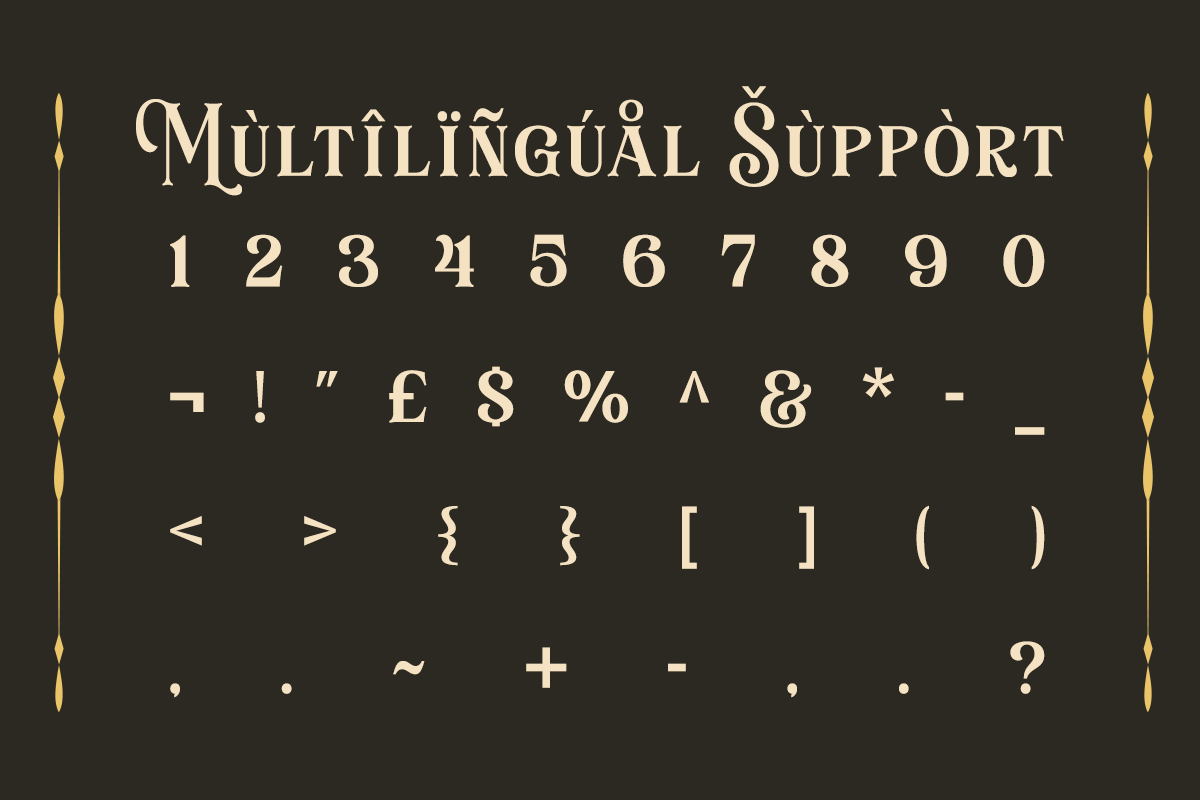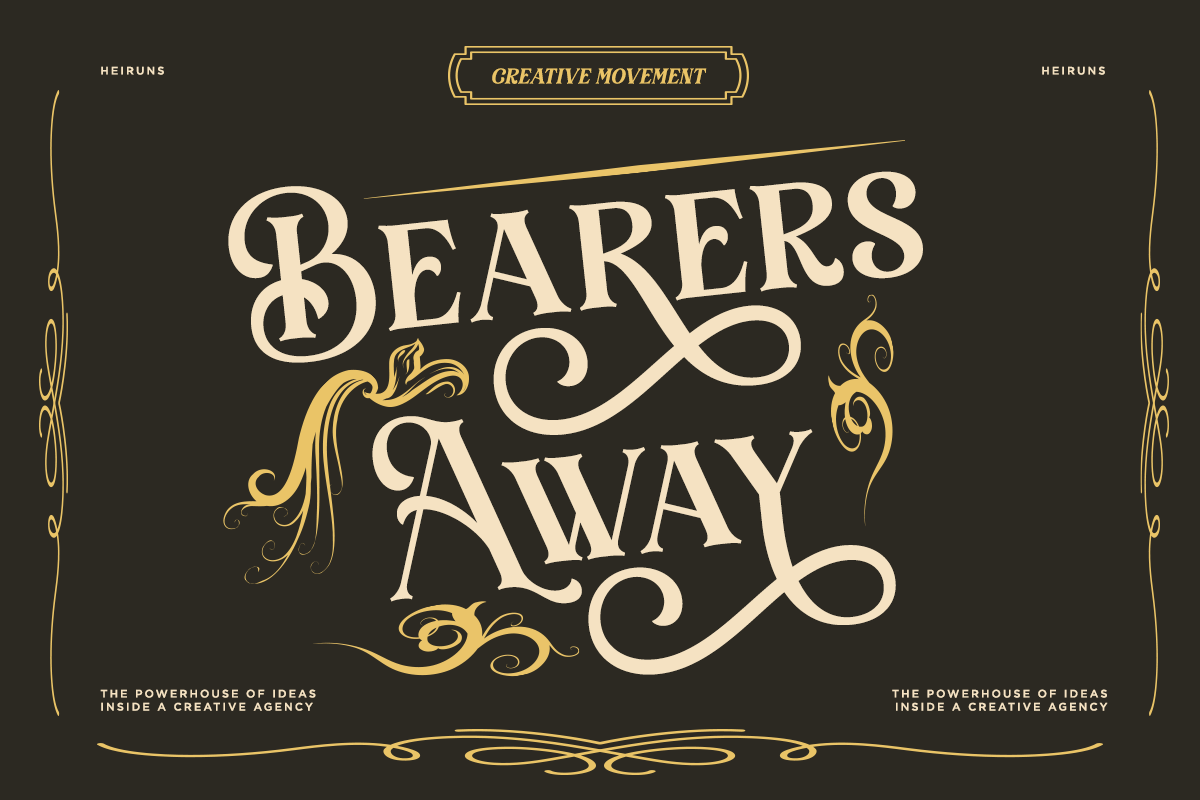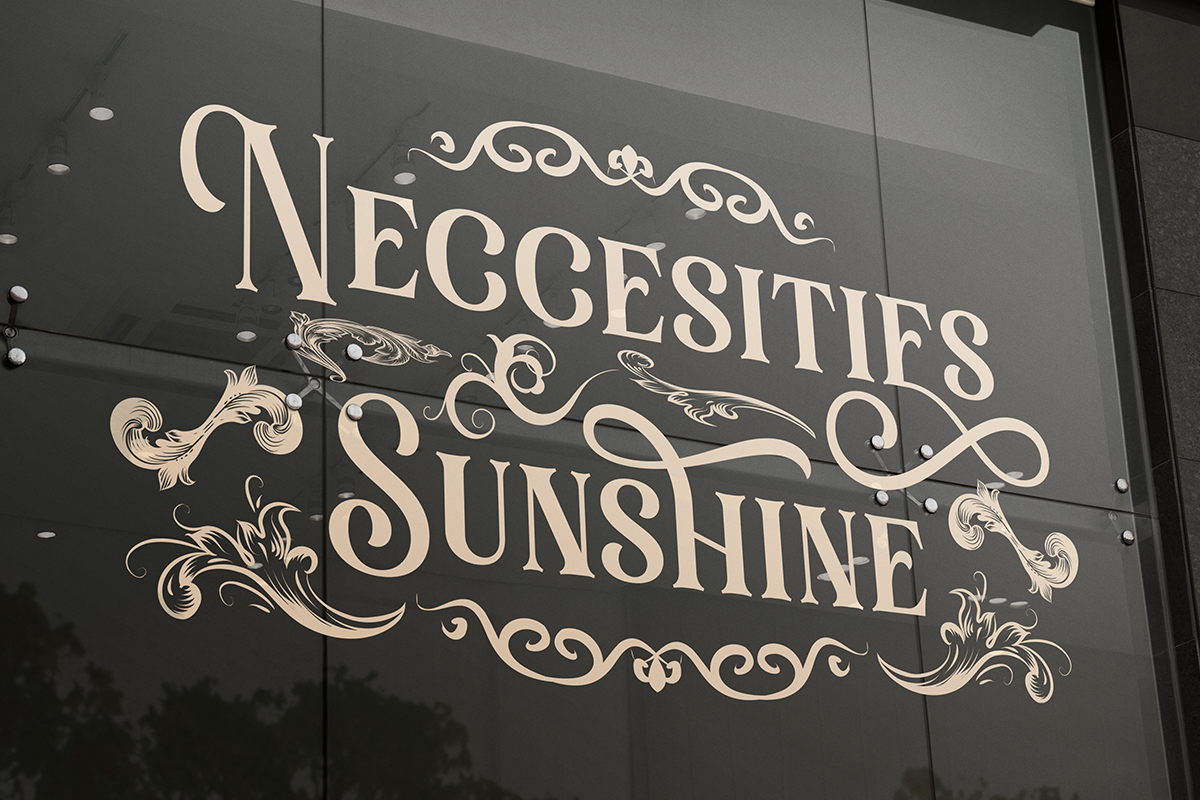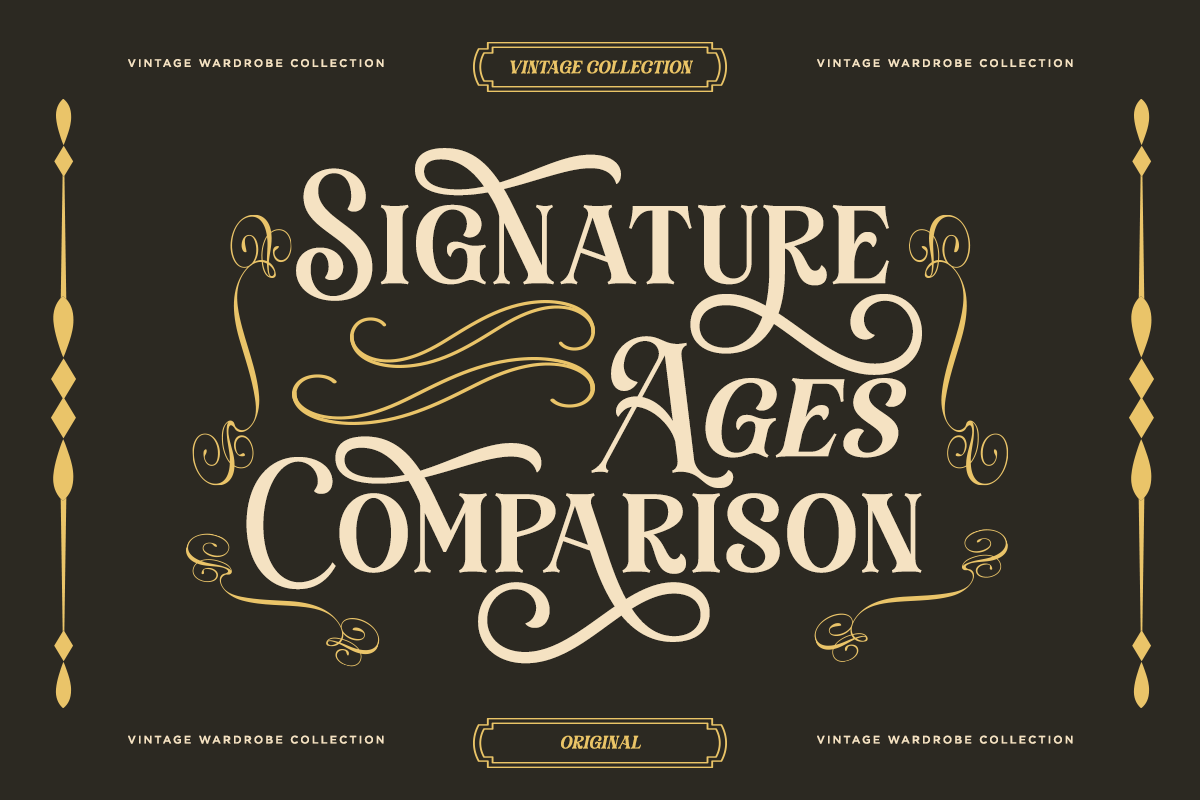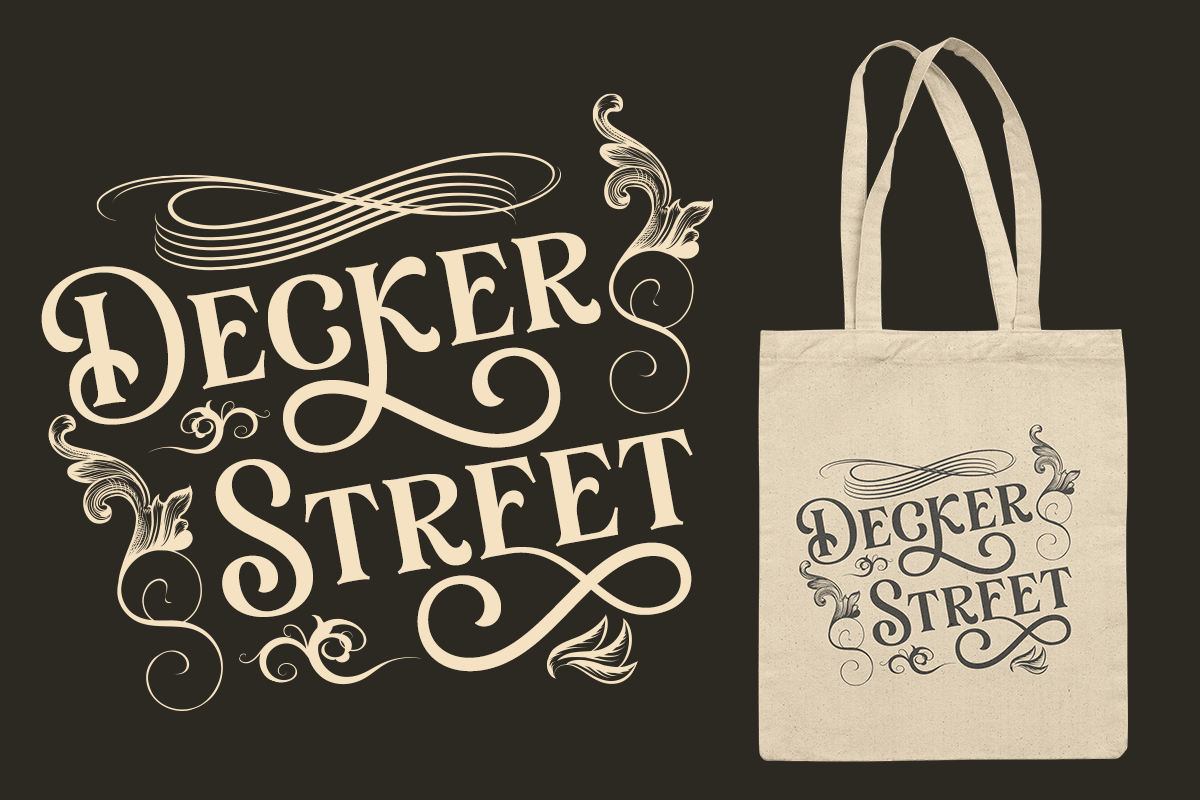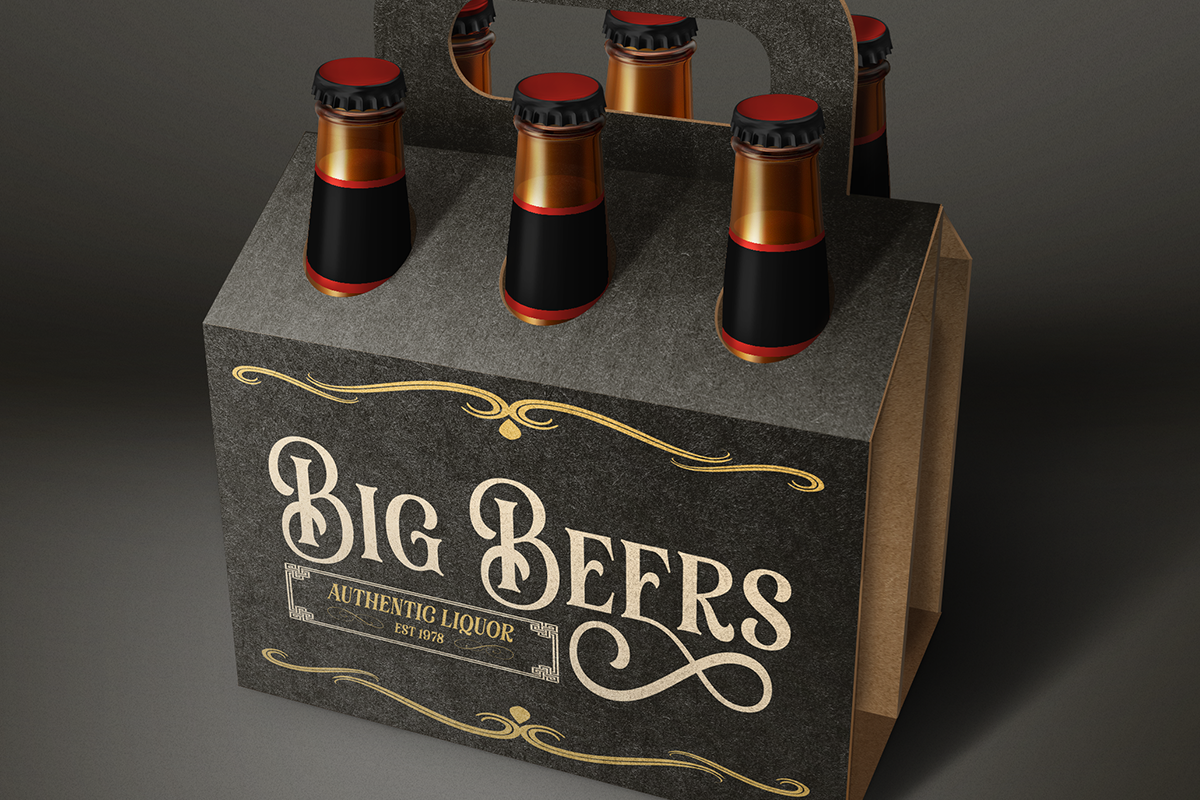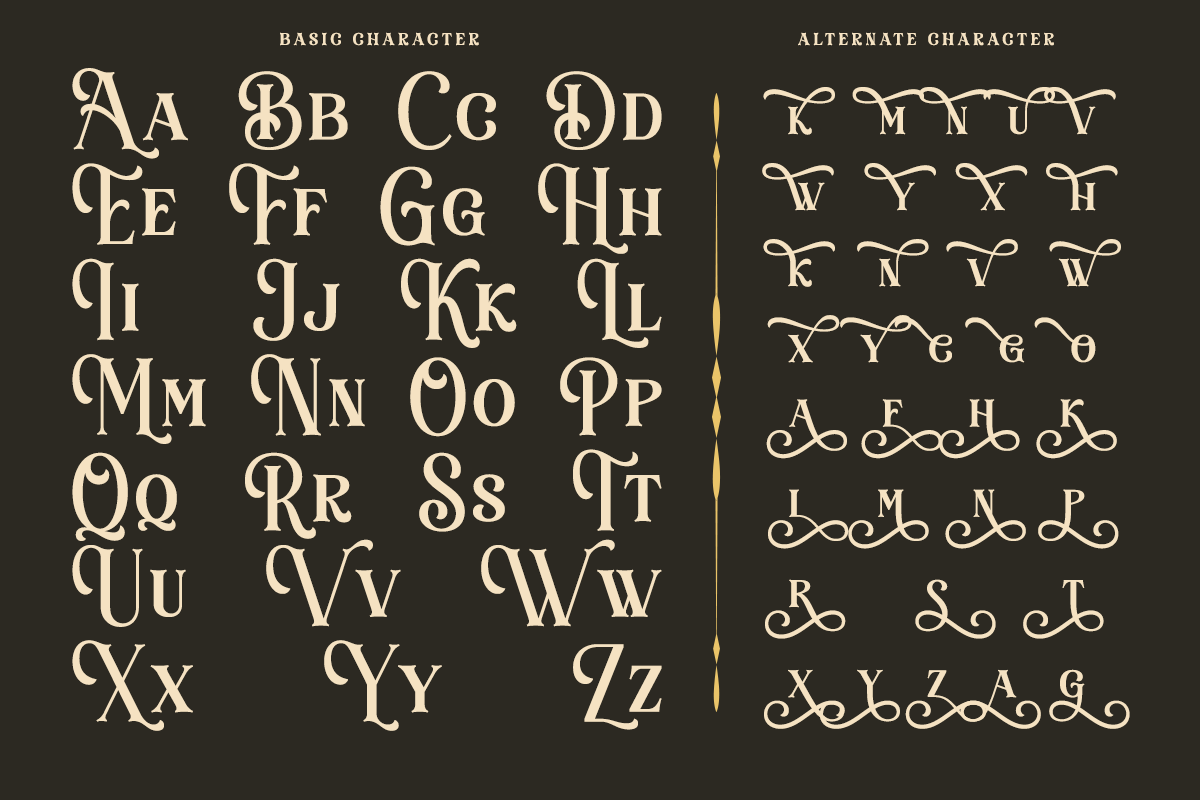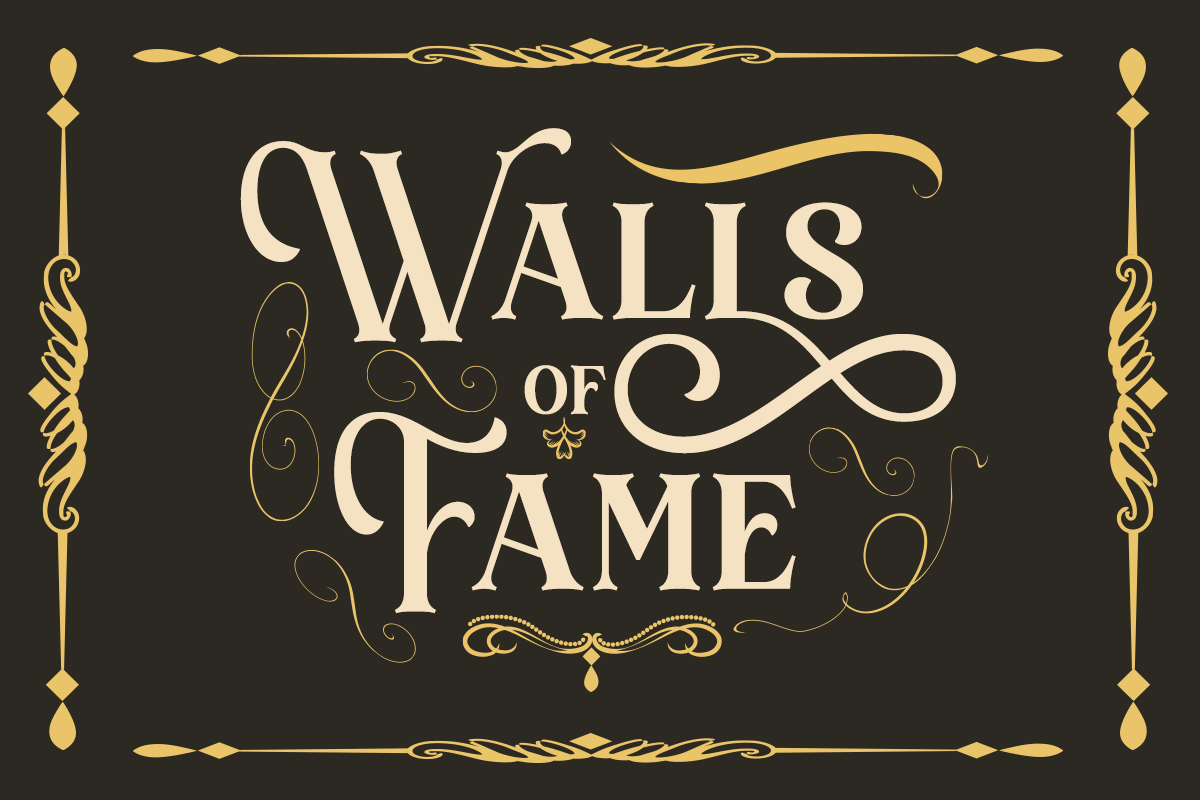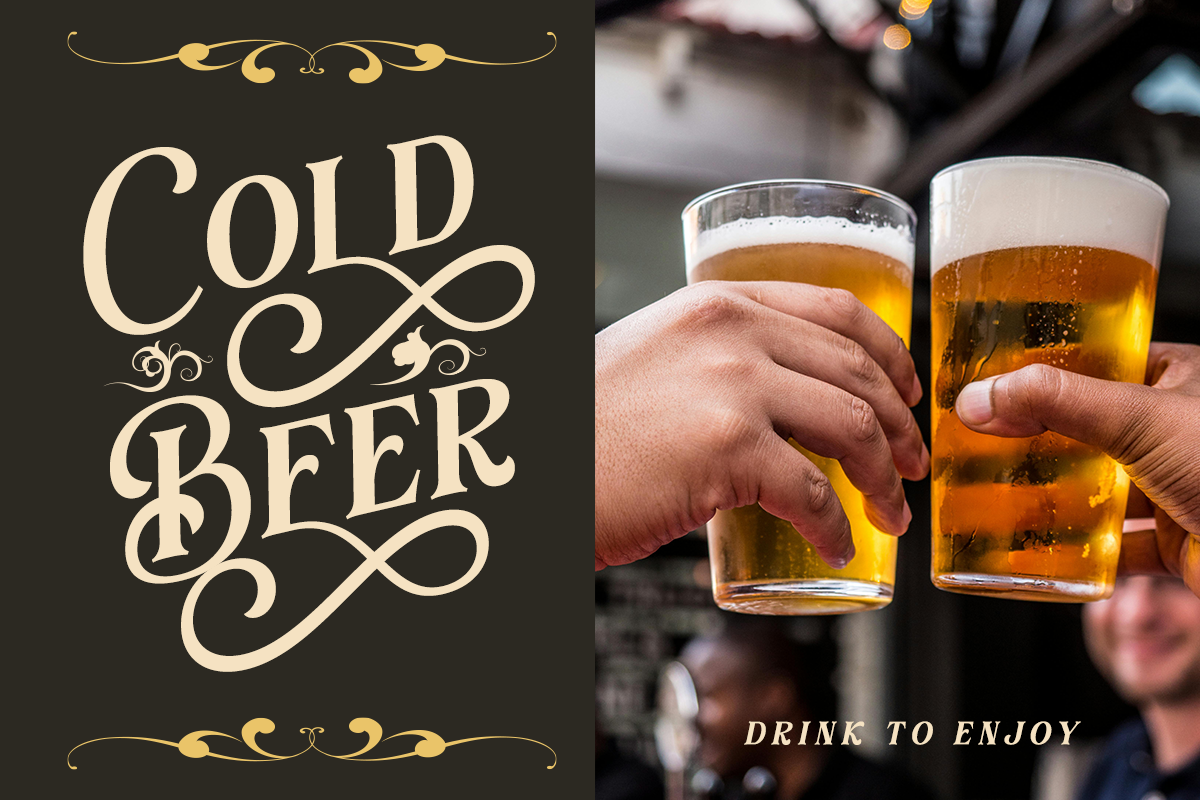
Decorative Luxury Serif - Heiruns
Heiruns is a timeless vintage display font inspired by classic signage, heritage branding, Victorian typography, and handcrafted lettering. Featuring elegant high-contrast serifs, flowing swashes, and beautifully crafted ornamental alternates, this typeface brings sophistication and nostalgic charm to every design.
Designed for creators who love authentic vintage aesthetics, Heiruns transforms ordinary typography into eye-catching compositions perfect for logos, whiskey labels, beer packaging, coffee branding, restaurant identities, boutique shops, apparel, invitations, posters, book covers, editorial layouts, and premium merchandise. The combination of refined serif structures and decorative flourishes makes every headline feel luxurious and memorable.
With extensive stylistic alternates and ornamental elements, Heiruns gives you the flexibility to create unique lettering compositions while maintaining a cohesive classic identity. Whether you're designing heritage branding, artisan packaging, retro advertising, or elegant promotional materials, this font delivers an authentic vintage personality with modern usability.
Regular and Italic
Number, Symbol, and Punctuation
Multi Language Support